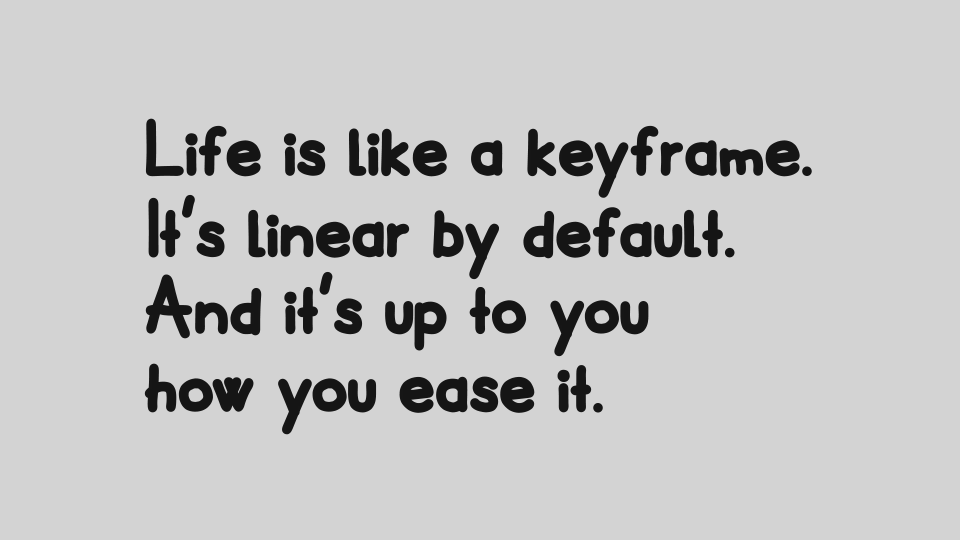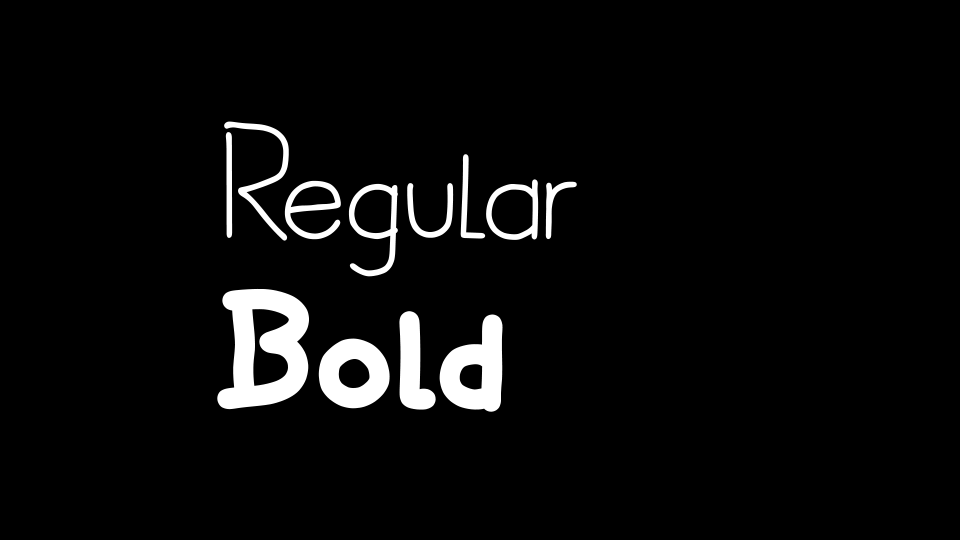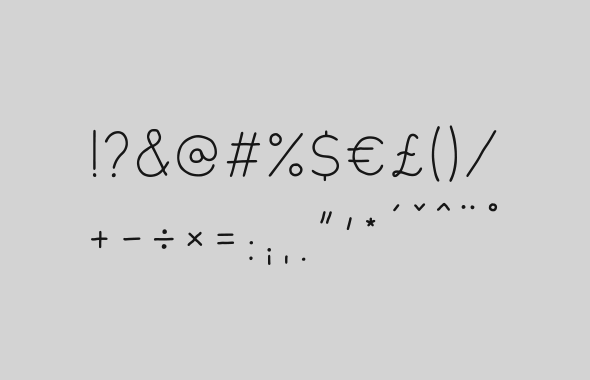
Sharpencil
A custom, hand-crafted typeface by Mister Horse—built first and foremost as an animated font for motion work. The animation is created frame-by-frame by a real human (no shortcuts), giving it that authentic hand-written feel and imperfections that make it alive.